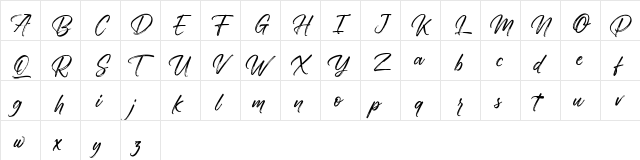
Walking Dream FREE Regular
Design Context for Walking Dream FREE Typeface
Walking Dream FREE is a composed and adaptable typeface that performs quietly and consistently across a wide range of design contexts.
Pro Tip: Pair Walking Dream FREE with a font of contrasting weight or personality to build a more expressive typographic hierarchy.